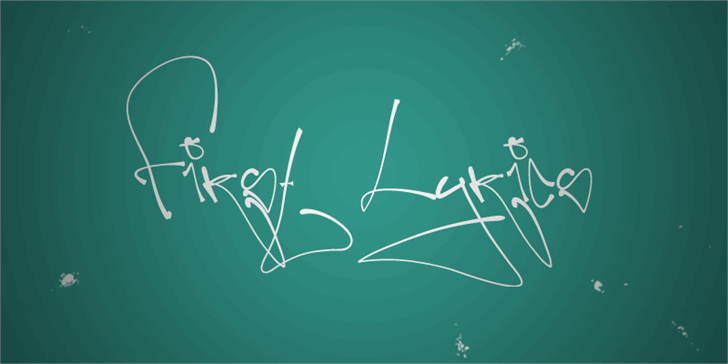
Free First Lyrics Font
Today we're glad to feature this free first lyrics font. This free typeface file was found from the amazing source called Font Space. This is absolutely fancy font so you can easily make world-class designs.